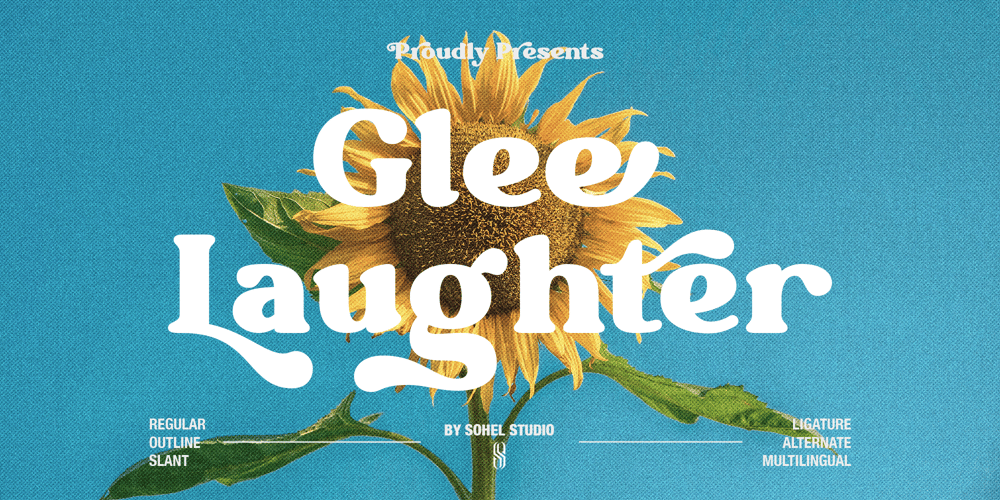
Glee Laughter Font Family was designed by Akhmad Husain Rifa’i and published by Sohel Studio. Glee Laughter contains 2 styles and family package options. Lodge Introducing our retro chunky serif font, a bold and nostalgic typeface that brings a classic and timeless design to your projects. With its thick, distinctive serifs and strong character set, this font is perfect for creating eye catching headlines, vintage posters, and stylish branding. Embrace the 1970s-inspired aesthetics with this unique typography that adds a touch of nostalgia to your designs. Whether you’re working on print materials, display graphics, or editorial layouts, our retro chunky serif font will give your projects a bold and timeless appeal.